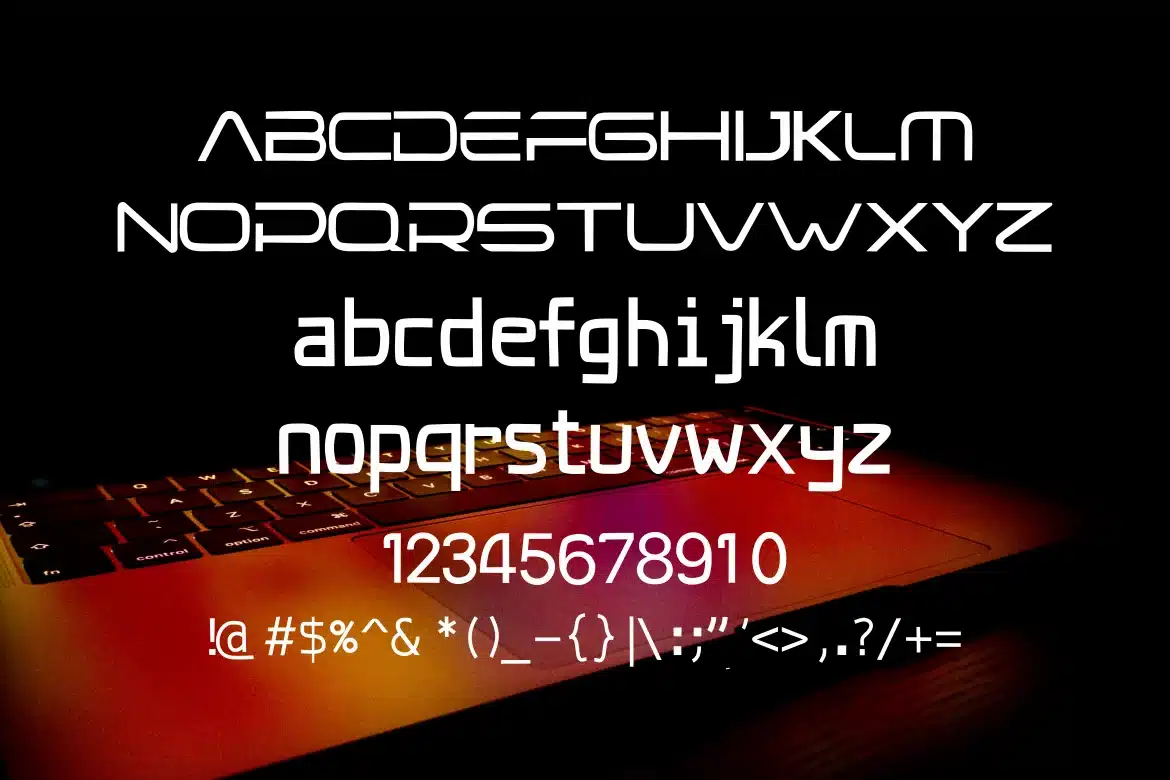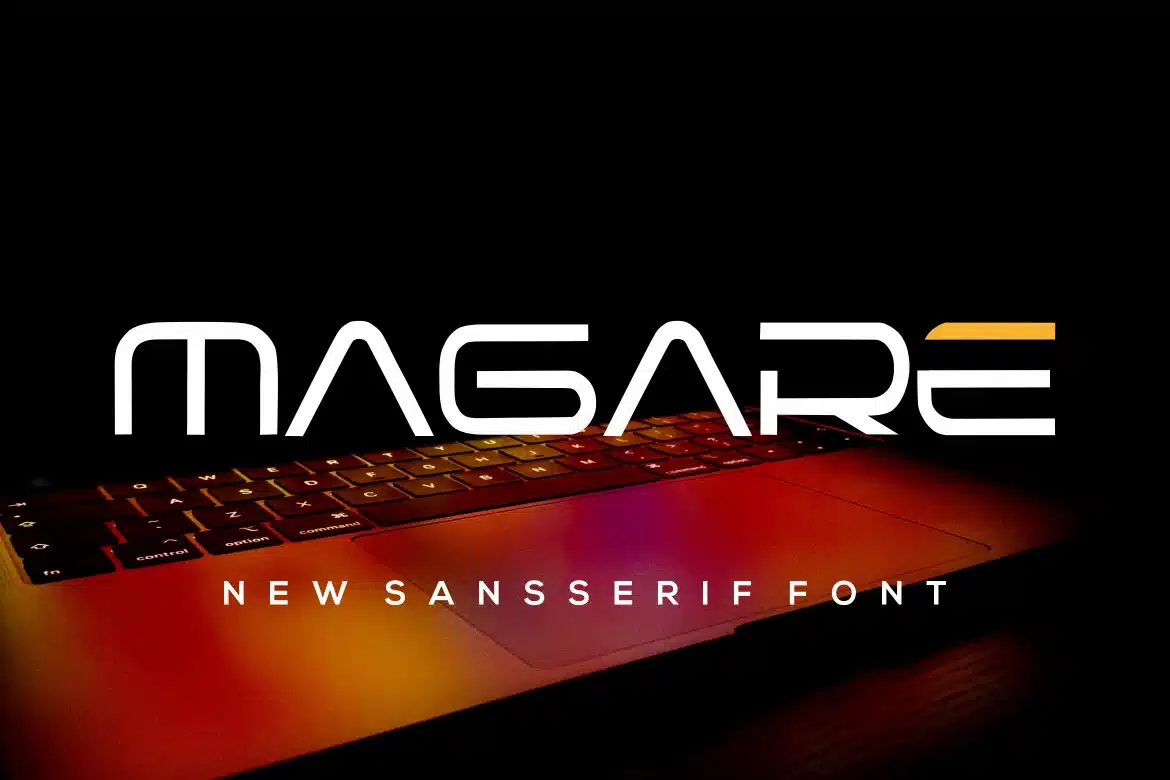
MAGARE is a wide, round, contemporary sans serif typeface that was conceived as a branding and editorial solution. This Font was designed as a versatile and flexible that can be used on a range of projects and mediums.